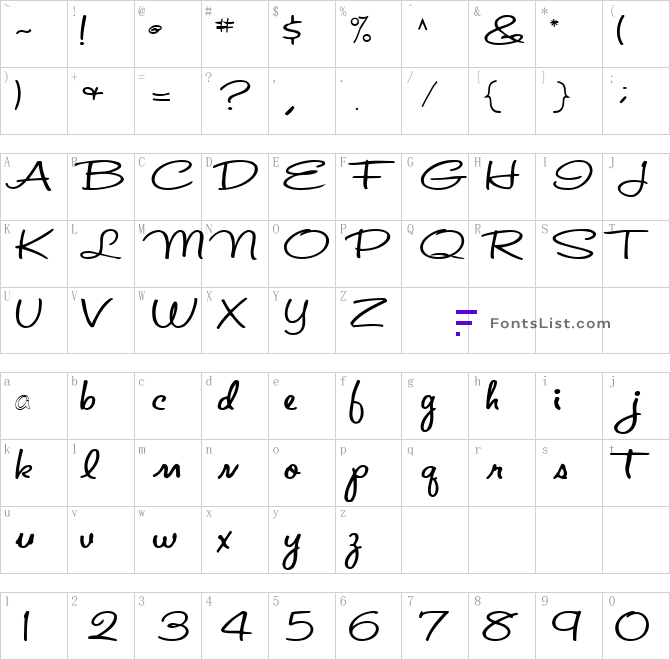
- Font Name:AdVentura33
- Subfamily:Altsys Metamorphosis:AdVentura33 Bold
- Full Name:AdVentura33 Bold
- Weight:7
AdVentura33-Bold.ttf is a very beautiful artistic font, AdVentura33-Bold.ttf is widely used in the design and printing of various books and pictures,AdVentura33-Bold.ttf has a strong visual impact,AdVentura33-Bold.ttf is a commonly used font in newspapers, magazines and books, and is used in posters, e-commerce Poster design, store design, logo design, font design and other fields.AdVentura33-Bold.